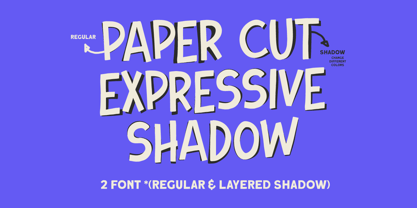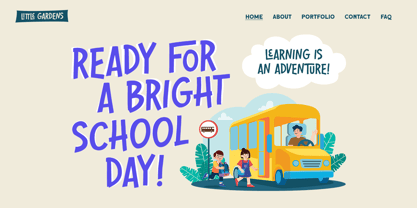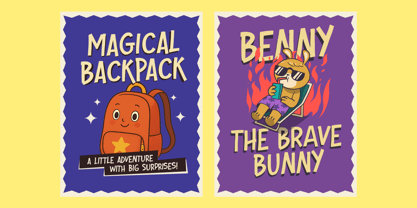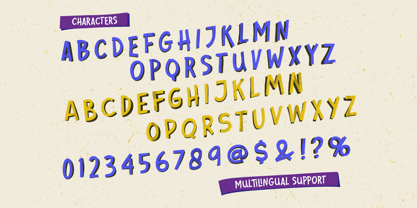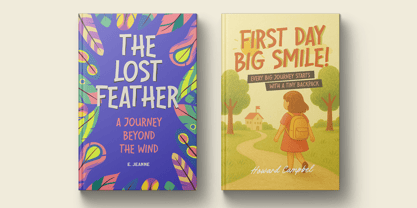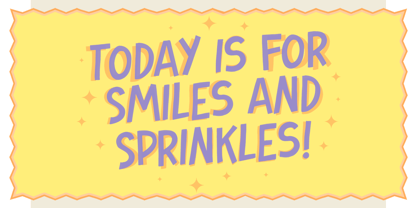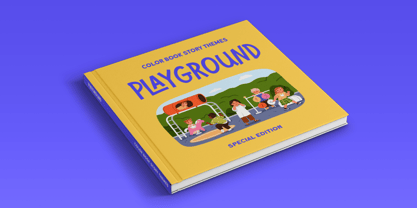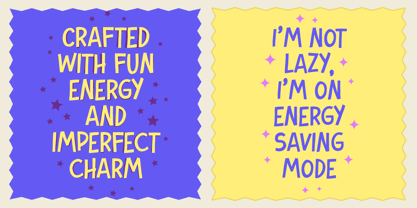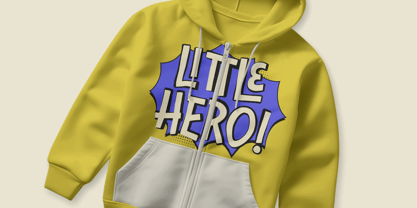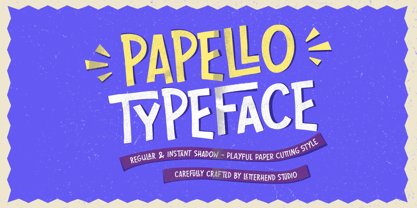
Papello
by Letterhend
The Papello Font Family was designed by Hendry Juanda and published by Letterhend. Papello contains 2 styles and family package options. More about this family
Papello is a fun and playful display font inspired by paper-cutting art. With its irregular shapes and layered shadow effect, this typeface adds a handcrafted and lively touch to any design. It’s perfect for posters, children’s books, packaging, and creative titles that need a cheerful and crafty personality. Features : Uppercase & lowercase Numbers and punctuation Alternates & Ligatures Multilingual Support PUA encoded